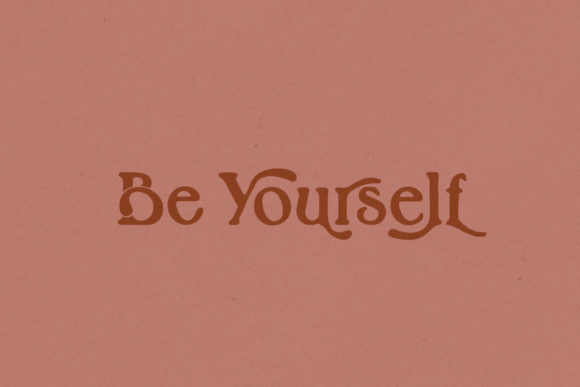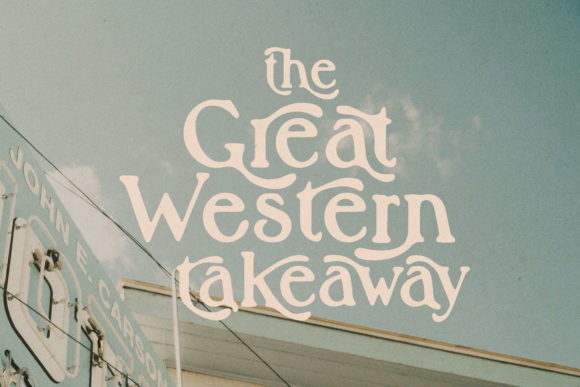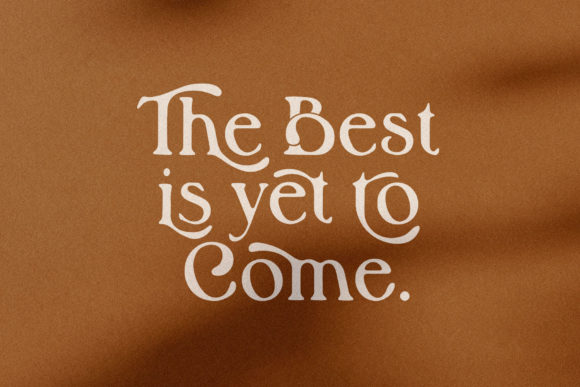
Introduction to Quanta La Oranj Font
As designers, we’ve all been there – staring at a blank canvas, trying to conjure up the perfect typography to elevate our creative project. And sometimes, that perfect font can make all the difference. For those seeking a vintage touch with a modern twist, we’re excited to introduce the Quanta La Oranj Font – a stunning serif font that’s sure to captivate your audience.
With its unique blend of alternates and ligatures, the Quanta La Oranj Font is perfect for designing eye-catching logos, quotes, wedding invitations, and even Instagram posts. And the best part? It’s PUA encoded, making it incredibly easy to access all the glyphs and swashes you need to create high-quality designs with a transparent background.
Key Features of Quanta La Oranj Font
- High-quality font with a unique, vibrant design suitable for creative projects
- Designed with a transparent background, allowing for flexibility in design composition
- Optimized for high-resolution displays (up to 300 DPI) for crisp and clear readability
- Quanta La Oranj Font comes in 6 styles, including regular, bold, italic, and bold italic, to cater to diverse design needs
- Perfect for use in various creative projects, such as logos, branding materials, and digital artwork
Honest Review: Quanta La Oranj Font
I recently had the chance to work with Quanta La Oranj Font for a creative project, and I must say it was a pleasant experience. This font is a high-quality design resource that can elevate any design project. With its unique and bold characteristics, it’s perfect for making a statement.
What works well with Quanta La Oranj Font is its versatility. It’s suitable for both digital and print designs, and it can be easily paired with other fonts to create a harmonious and visually appealing design. The font also has a transparent background, making it easy to work with and customize. ✨
However, there are a few limitations to consider. The font is not suitable for all types of designs, particularly those that require a more minimalist approach. Additionally, the font’s bold characteristics may not be suitable for all audiences, particularly those who prefer a more subtle design aesthetic. ⚠️
- Perfect for creative projects that require a bold statement
Overall, I would recommend Quanta La Oranj Font for designers who want to add a touch of boldness and creativity to their projects. While it may not be suitable for all types of designs, it’s a valuable addition to any designer’s toolkit.
How to Use Quanta La Oranj Font
Tips for Getting the Most Out of Quanta La Oranj Font
Use Quanta La Oranj Font in creative projects, such as branding, advertising, or packaging design. Experiment with different font sizes, styles, and colors to create a unique and eye-catching design. You can also use the font in combination with other design resources to add depth and visual interest to your project.
Quanta La Oranj Font is commonly used in branding, advertising, and packaging design. It’s also a great choice for creating eye-catching headings and titles. With its unique style and high-quality design, Quanta La Oranj Font is a valuable resource for any design project.